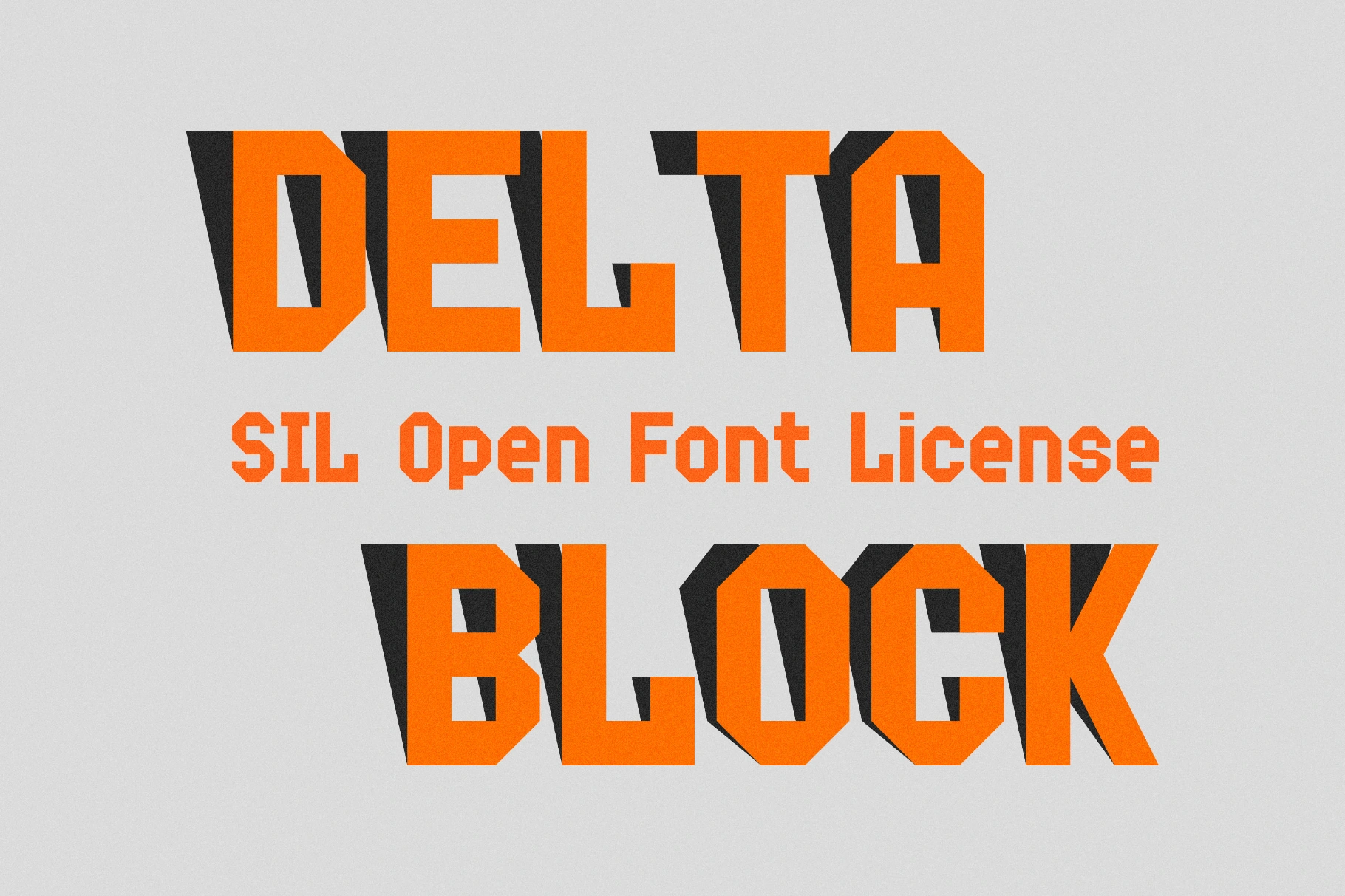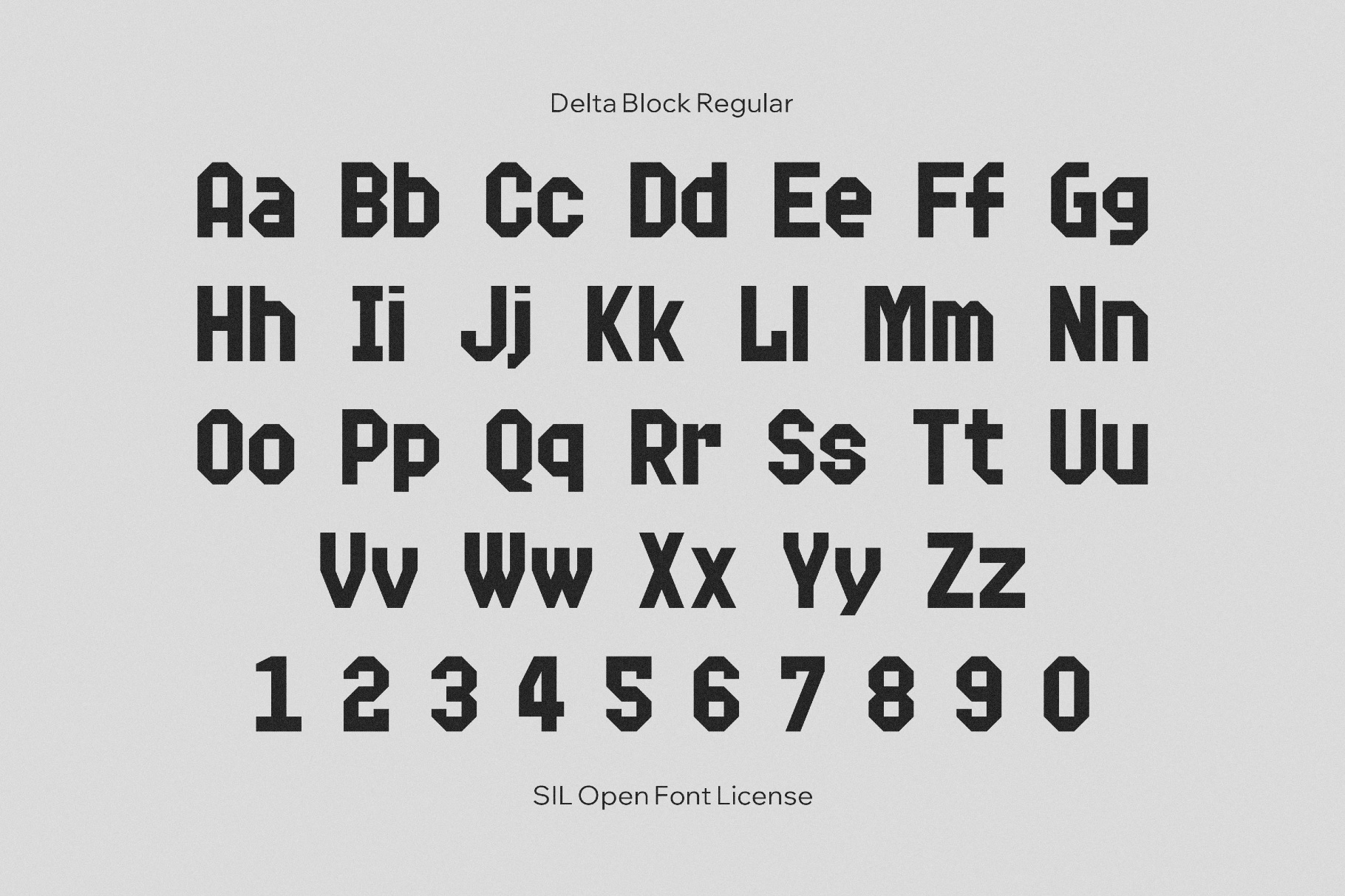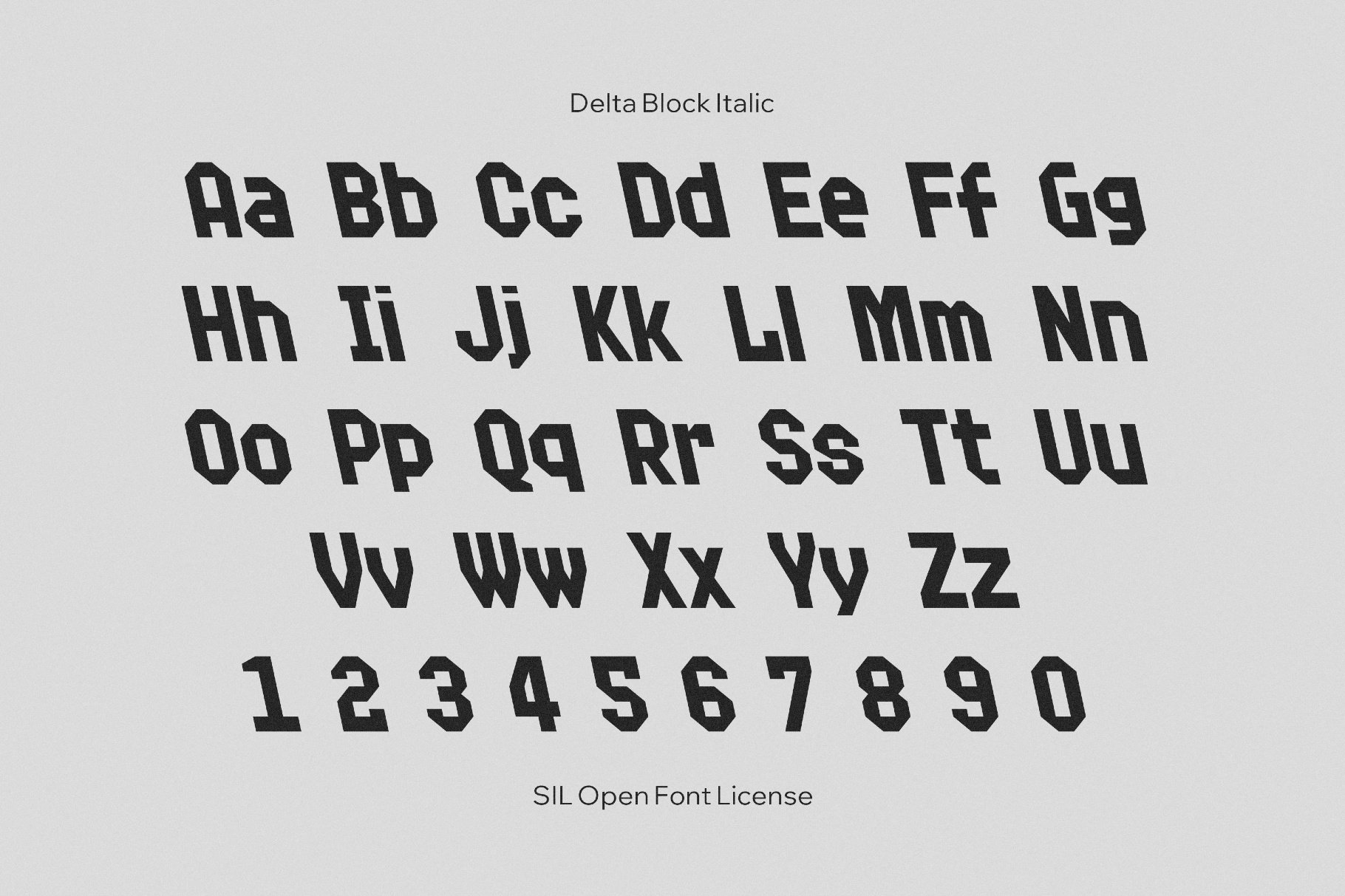
Delta Block Font
The Delta Block font stacks chunky, squared forms with a strong rhythm that recalls arcade cabinets and 1980s sci-fi title sequences. Its heavy geometry and tight presence work well for gaming logos, sports branding, tournament posters, UI menus, album covers, stickers, apparel prints, website hero text, and signage.
• Two styles: Regular and Italic.
• Uppercase and lowercase letters.
• Numbers, punctuation, and symbols.
• International characters with multilingual coverage across extended Latin and Cyrillic scripts.
• A set of common mathematical symbols.